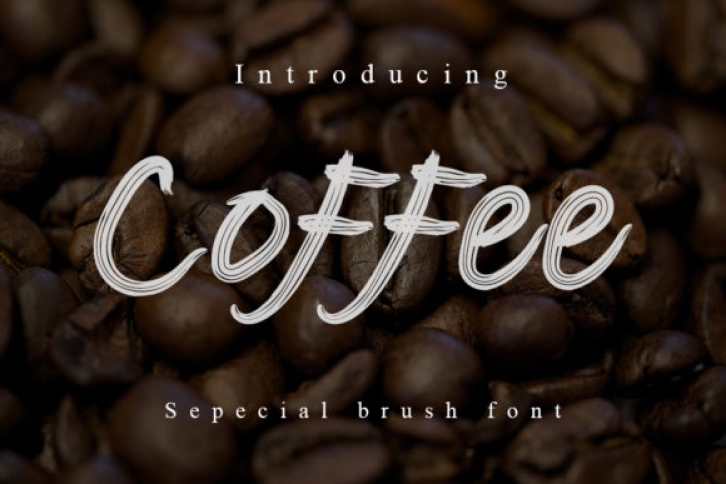
Coffee is a cool brushed display font, featuring the right amount of trendiness. No matter the topic, this font will be an incredibly asset to your fonts’ library, as it has the potential to elevate any creation.